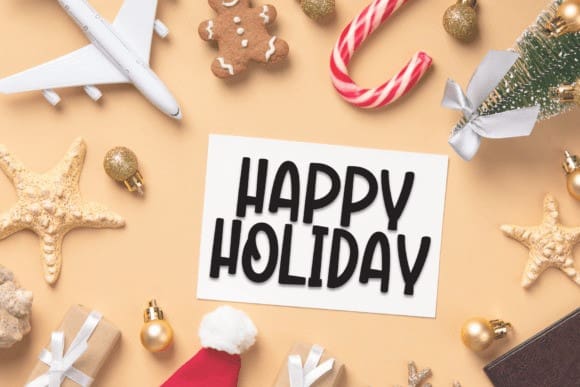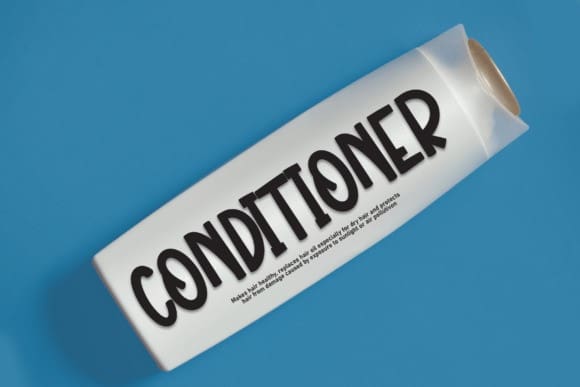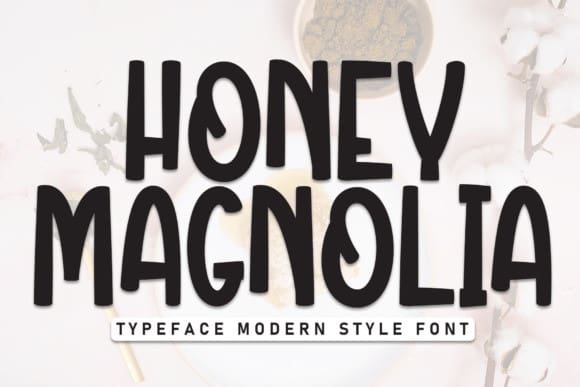
Honey Magnolia Font
Honey Magnolia Font a charming and approachable handwritten display font that exudes warmth and friendliness. Imbued with a sense of lighthearted enjoyment, this font brilliantly shines when used for crafting wedding invitations, greeting cards, or any design craving a playful twist. Express your creativity and infuse a delightful touch to your artworks with this beautiful font!